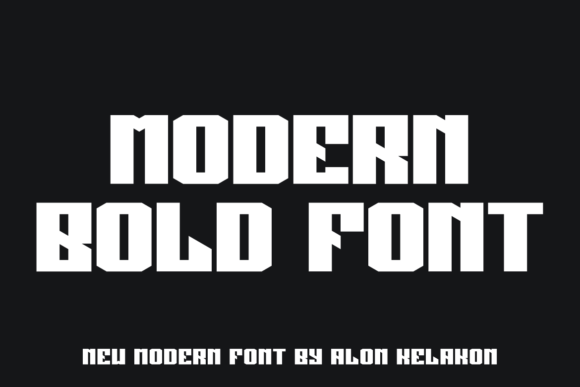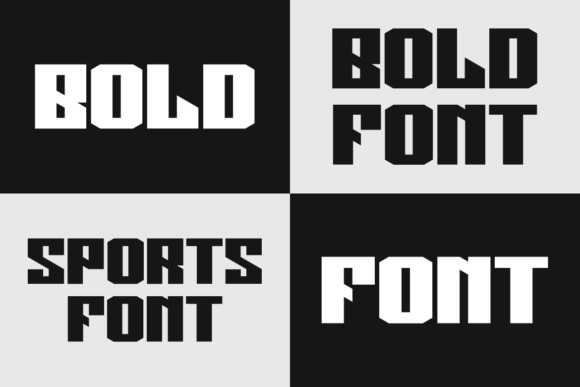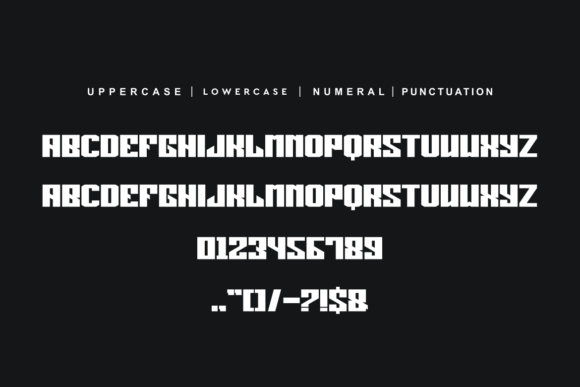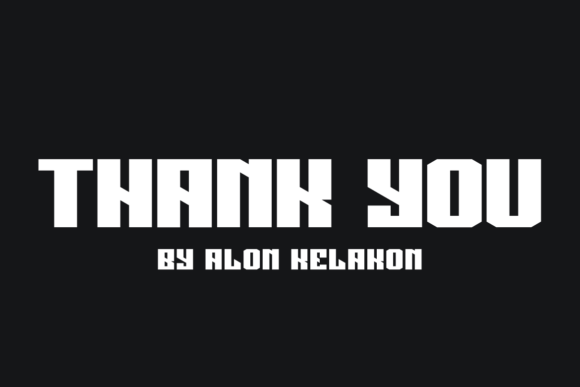
Introduction to Jungkal Font
Jungkal Font is a unique display font with bold characters.
Ready to use for your design like labeling, clothing, movie scenes, posters, movie titles, gigs, album covers, logos, and much more .